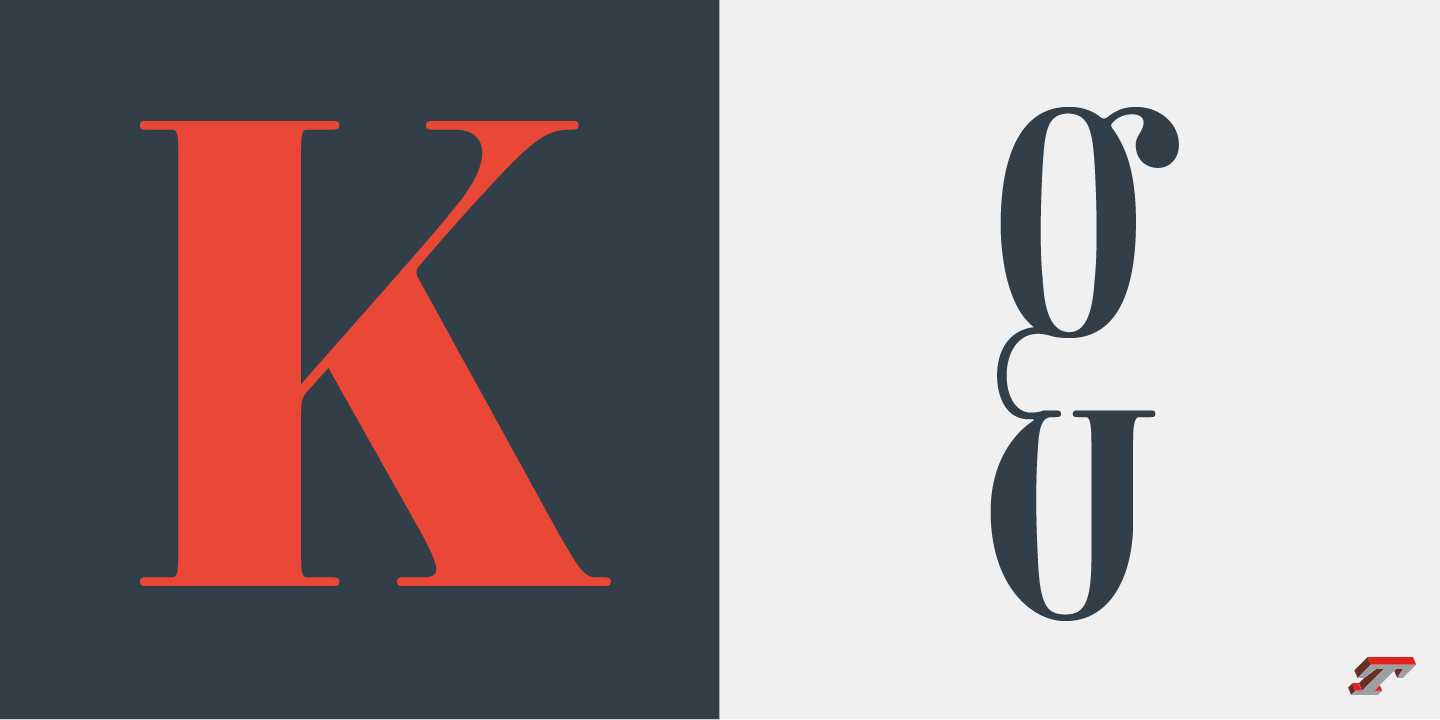
Typofonderie
French type foundry led by Jean Francois Porchez, creating refined typefaces rooted in French typographic tradition.
Typofonderie is a French type foundry established by Jean Francois Porchez in 1994. Based in Paris, the foundry produces typefaces that draw on centuries of French typographic heritage while addressing contemporary design needs.
Design Philosophy
Porchez brings deep historical knowledge to every project, studying original sources and period specimens before developing new interpretations. His typefaces combine scholarly rigor with practical refinement, producing designs that honor their historical roots while functioning effectively in modern contexts.
Notable Typefaces
Typofonderie's catalog includes distinctive designs that have been adopted by major brands and cultural institutions:
• Ambroise - A contemporary Didone serif inspired by late-period Didot designs
• Anisette - A geometric display face with Art Deco sensibility
• Le Monde Journal - Created for the French newspaper Le Monde
Industry Recognition
Porchez has received numerous awards for his type design work and has served as president of ATypI, the international typographic association. His expertise in both retail and custom typeface design has made Typofonderie a respected name in European typography.